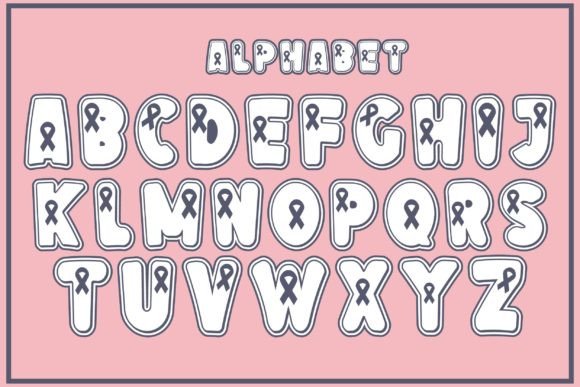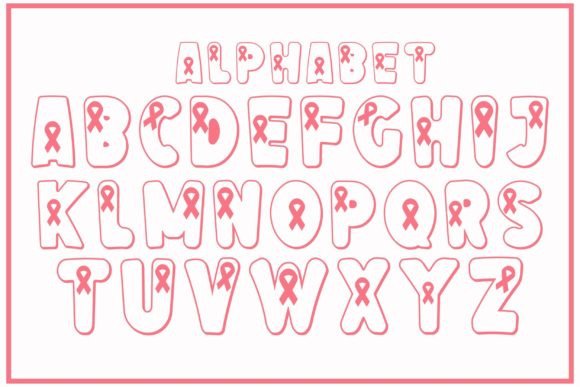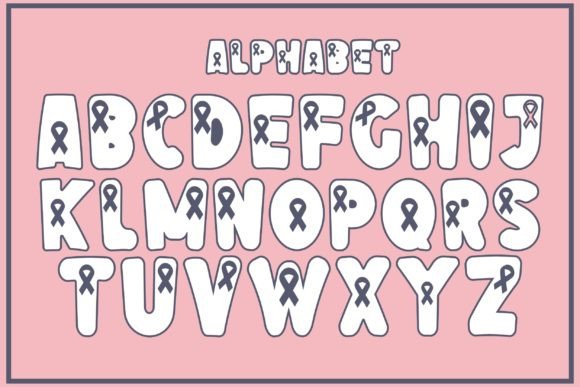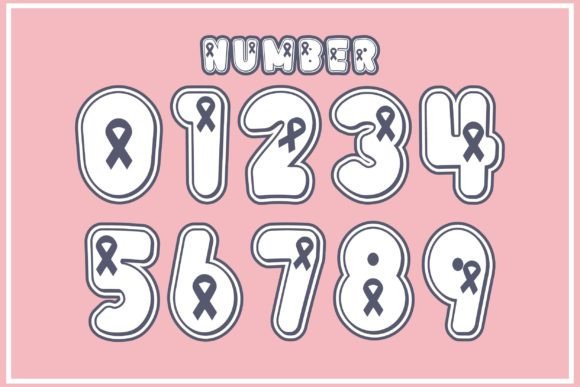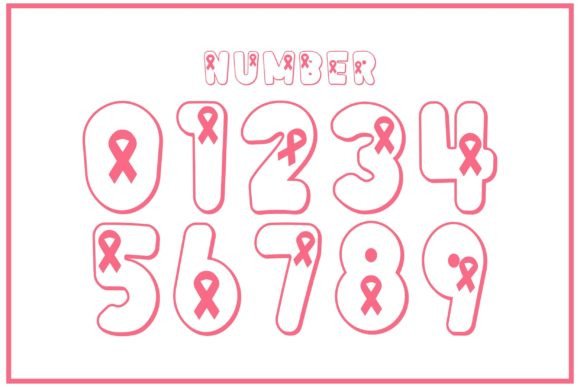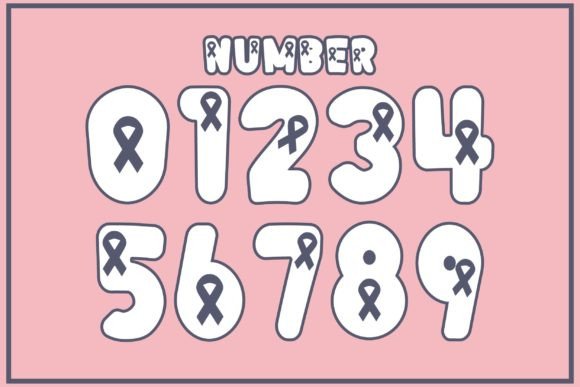
The Power of Typography: A Journey with the Believe Font
As designers, we’ve all been there – staring at a blank canvas, trying to find the perfect words to convey a message that will inspire, motivate, and uplift. It’s those moments of creative uncertainty that often lead to some of our most innovative work. For me, it was during a particularly challenging time when I stumbled upon the Believe Font – a thick lettered, uniquely designed decorative font that seemed to scream “hope” and “resilience”. Little did I know, this font would become a trusted companion in my design journey.
The Believe Font is more than just a stylish typographic choice; it’s a powerful tool designed to bring support and encouragement to those who need it most – people battling cancer. Its bold, expressive letters are perfect for creating eye-catching designs that spread awareness, raise funds, or simply offer a much-needed smile. As designers, we’re constantly on the lookout for fonts that not only look great but also tell a story. The Believe Font is a valuable addition to any designer’s toolkit, offering a unique opportunity to make a real difference in the world.
Believe Font Key Features
- Unique Characteristics: Believe Font features a unique, modern design with a mix of rounded and geometric shapes, making it ideal for creating eye-catching headlines and titles.
Believe Font Review
Overall, I think the Believe Font is a solid choice for designers looking to add a touch of elegance to their projects. ✨ Here are some of the things that work well:
- Unique blend of modern and classic elements, giving it a timeless feel.
- Legibility is excellent, making it suitable for a wide range of applications.
- The font’s weight and width options provide a good range of flexibility.
- It’s a great choice for titles, headings, and other display text.
- ⚠️ The font may not be as versatile for body text, where readability is crucial.
- ⚠️ Some users may find the font’s style a bit too ornate or busy.
- ⚠️ The font doesn’t come with a complete character set, which may be a limitation for certain languages.
Overall, I think the Believe Font is a great choice for designers who want to add some sophistication to their projects. While it may not be the perfect font for every situation, it’s a solid addition to any designer’s toolkit.
Believe Font Practical Application Guide
Believe Font is ideal for:
- Creating bold headings and titles.
- Adding a professional touch to presentations and documents.
- Making a statement with eye-catching typography.
Remember to experiment with different font sizes, colors, and styles to get the most out of Believe Font.
Alternative Fonts to Believe Font
Pacifico is a beautiful, elegant script font that is perfect for creating a warm and inviting atmosphere. It is ideal for use in branding, packaging, and advertising where a touch of sophistication is required. Compared to Believe Font, Pacifico has a more classic and timeless feel, while Believe Font has a more modern and trendy vibe.
Great Vibes is a modern script font that is perfect for creating a fun and energetic atmosphere. It is ideal for use in social media, advertising, and branding where a touch of playfulness is required. Compared to Believe Font, Great Vibes has a more carefree and spontaneous feel, while Believe Font has a more serious and elegant vibe.